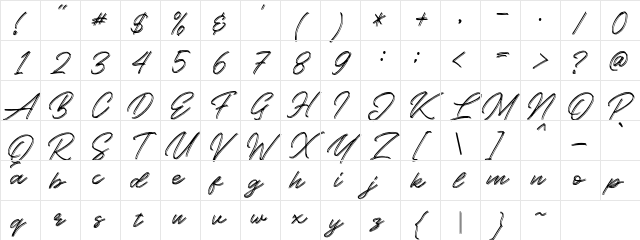
Kallisa Regular Free Font
Kallisa Regular
Foundry: Blankids Studio
Designer: Bangkit Tri Setiadi
Design Context for Kallisa
Kallisa is a composed and adaptable typeface that performs quietly and consistently across a wide range of design contexts.